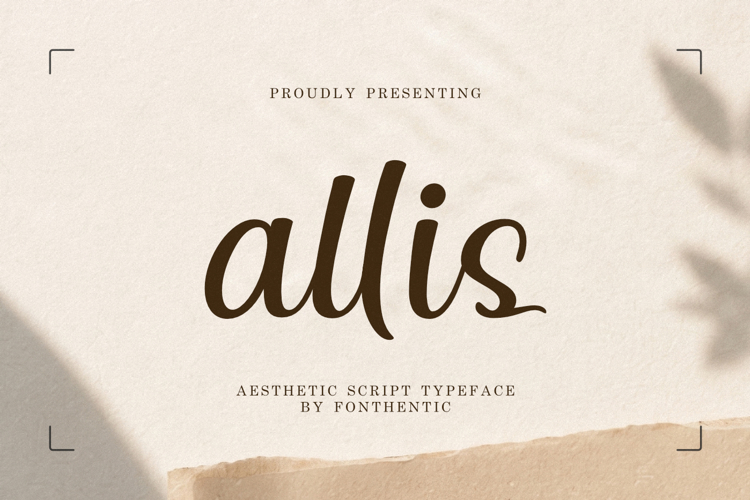
Allis Font
Allis is a sophisticated script typeface inspired by contemporary luxury branding and refined handwritten lettering. Built with smooth monoline strokes and fluid character transitions, it delivers a graceful visual rhythm that feels polished, feminine, and confidently understated.